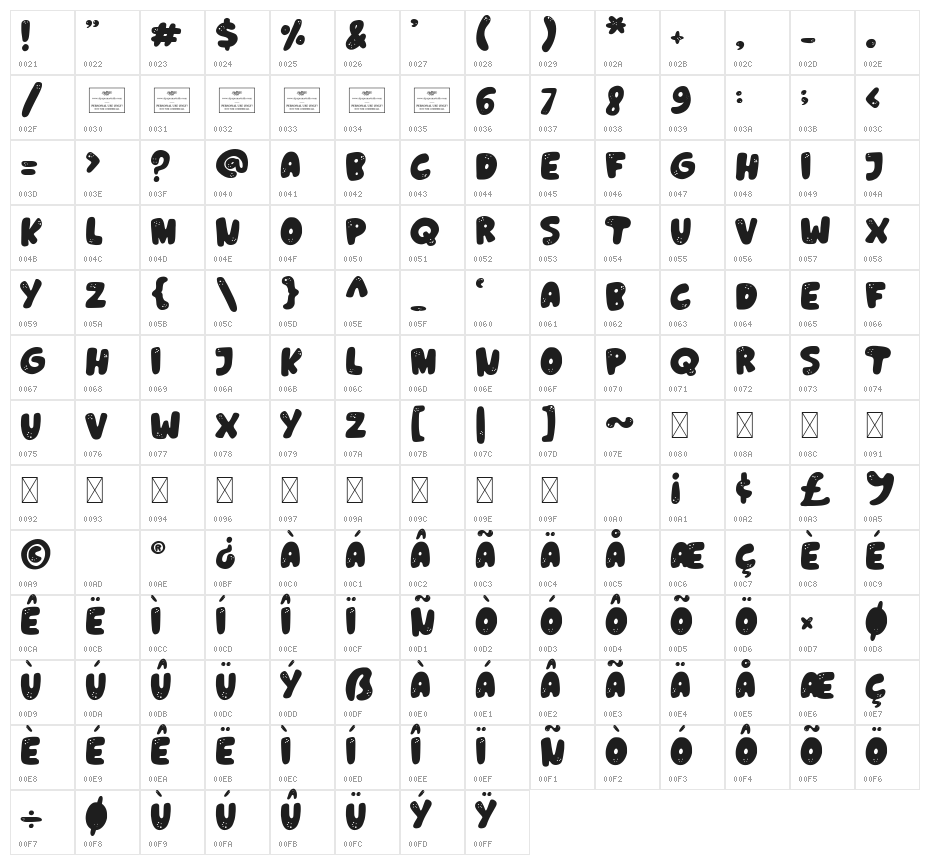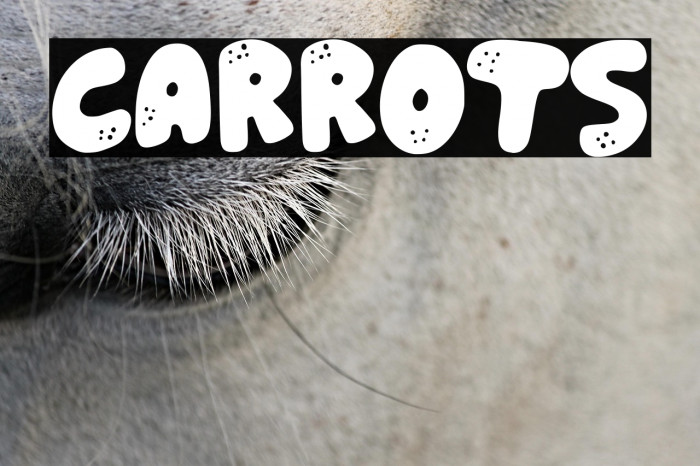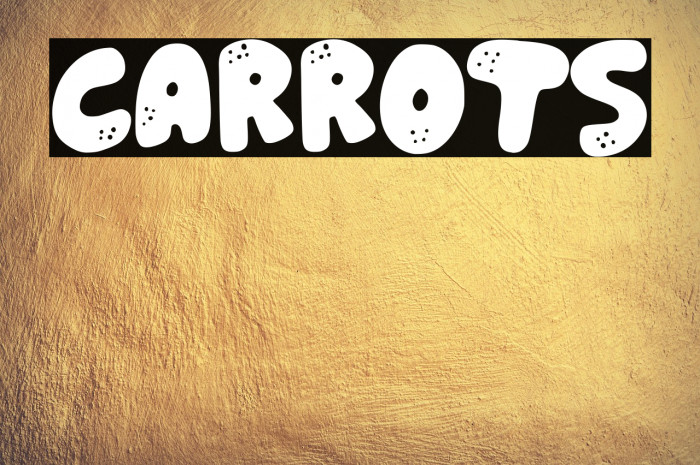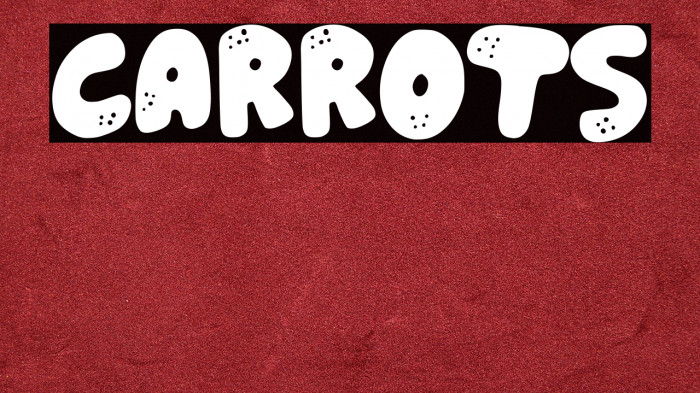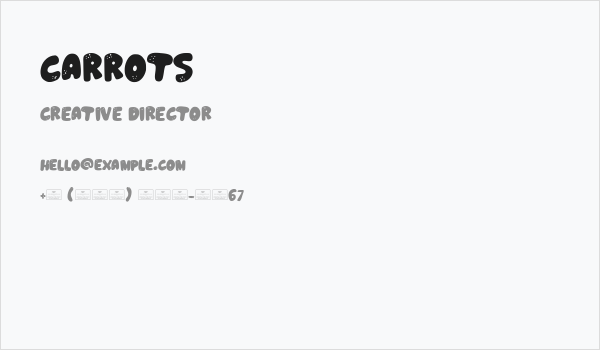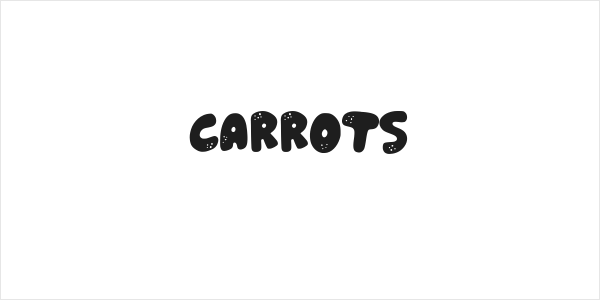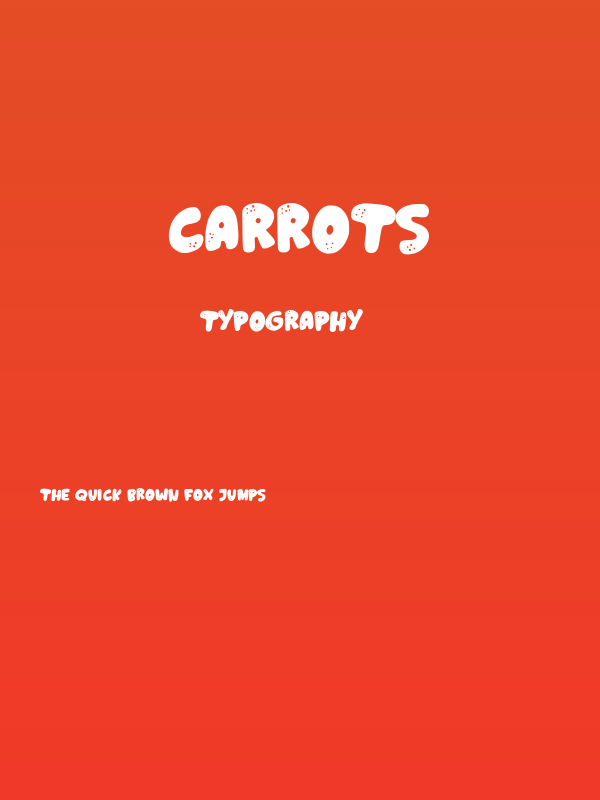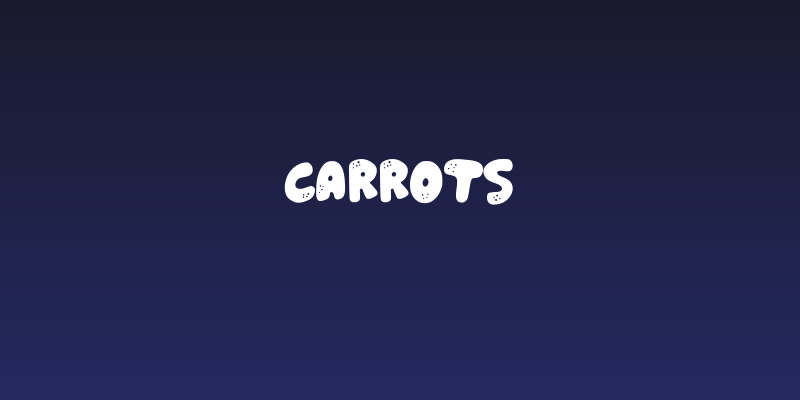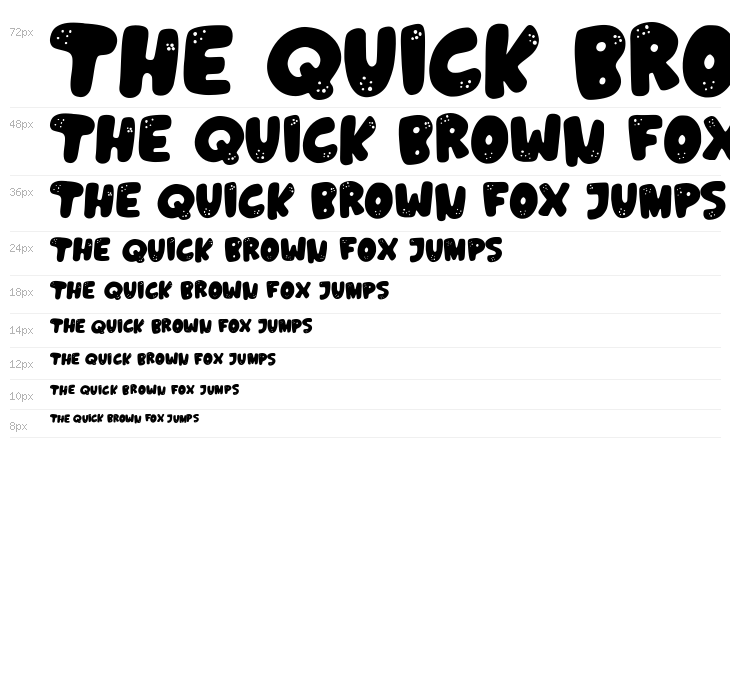
Carrots Font
Carrots Description
This playful and bold font features a bubbly, rounded style with a whimsical touch. Each character is generously spaced and has a unique, dotted texture that adds a fun and quirky element. The letters are thick and substantial, making them highly visible and attention-grabbing. The font's overall appearance is informal and lively, perfect for projects that require a sense of fun and creativity. Its distinctive style makes it suitable for children's books, party invitations, or any design that aims to convey a lighthearted and cheerful mood.
| Overall Style | Playful, Whimsical, Fun |
| Proposed Projects | Children's books, party invitations, playful branding, creative posters. |